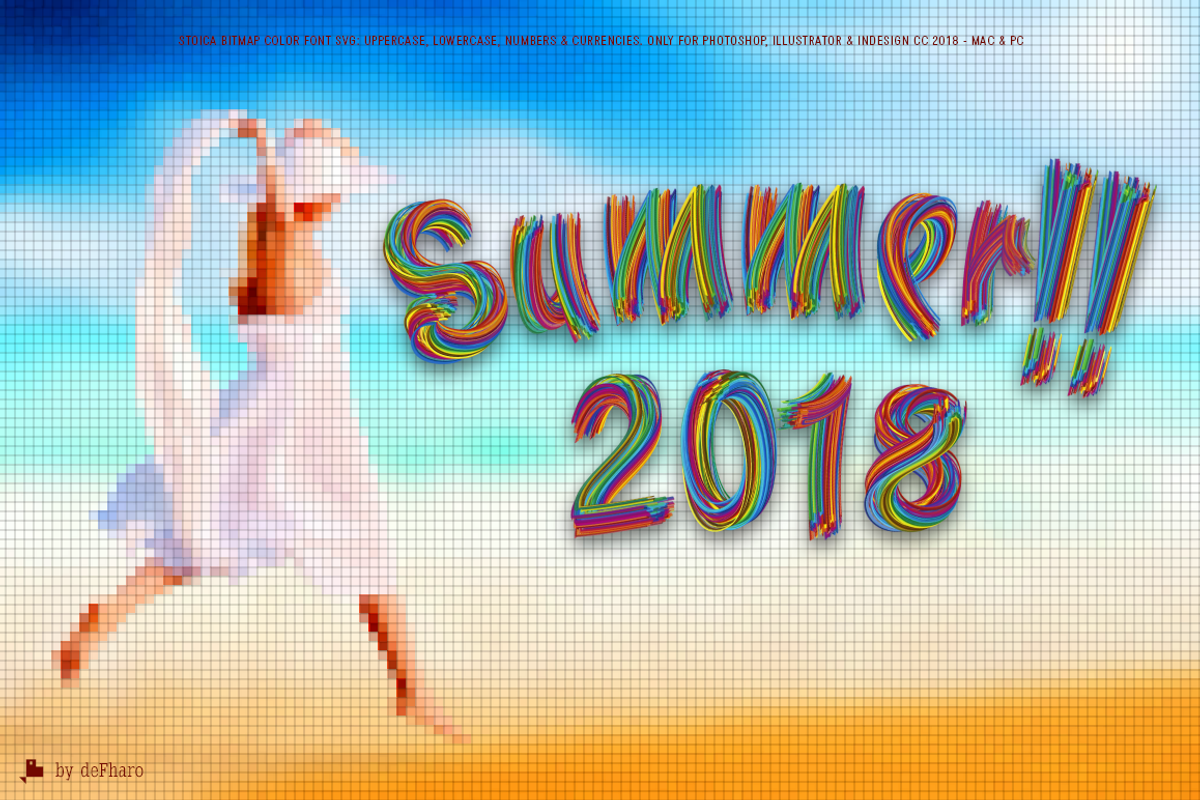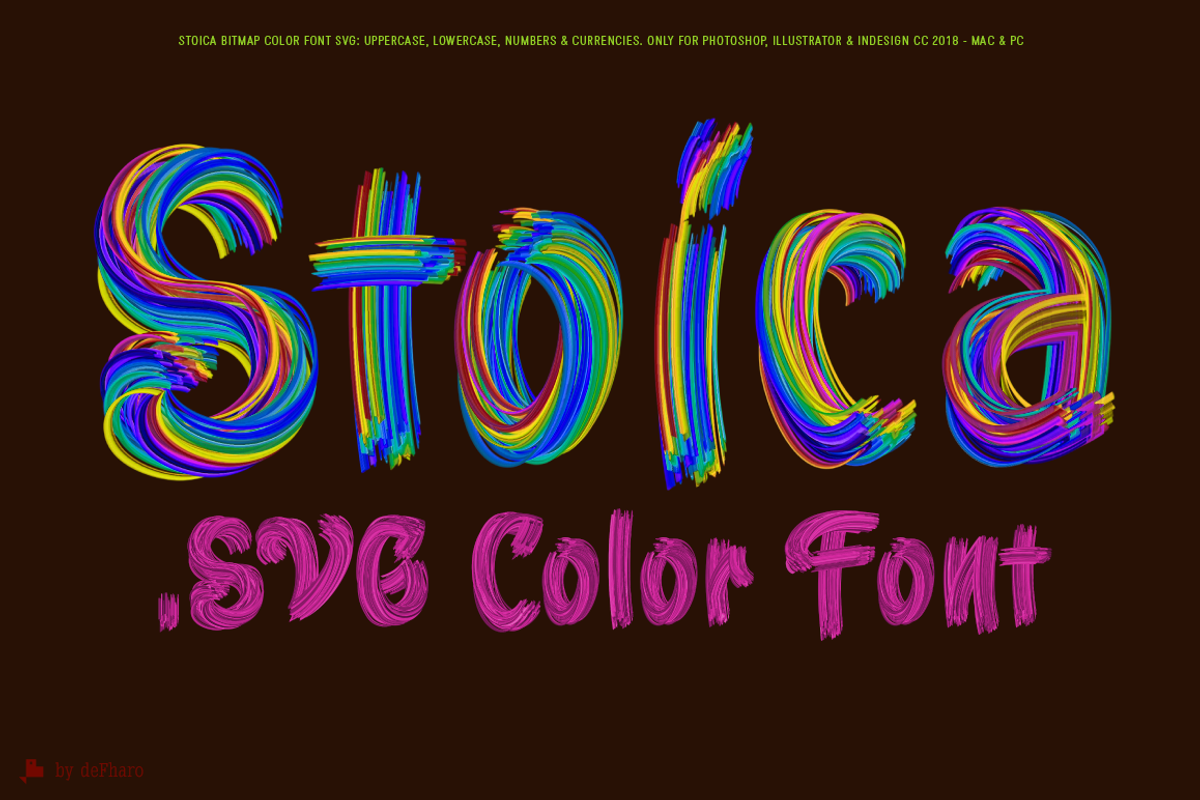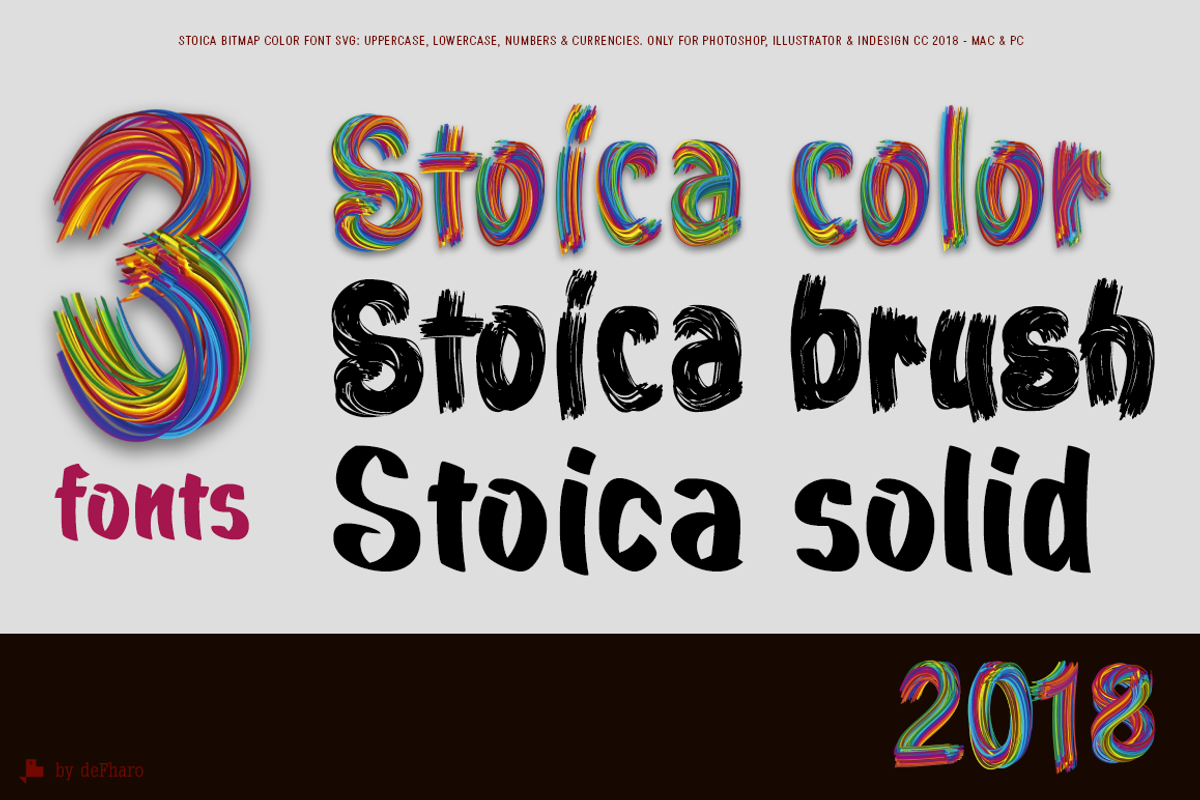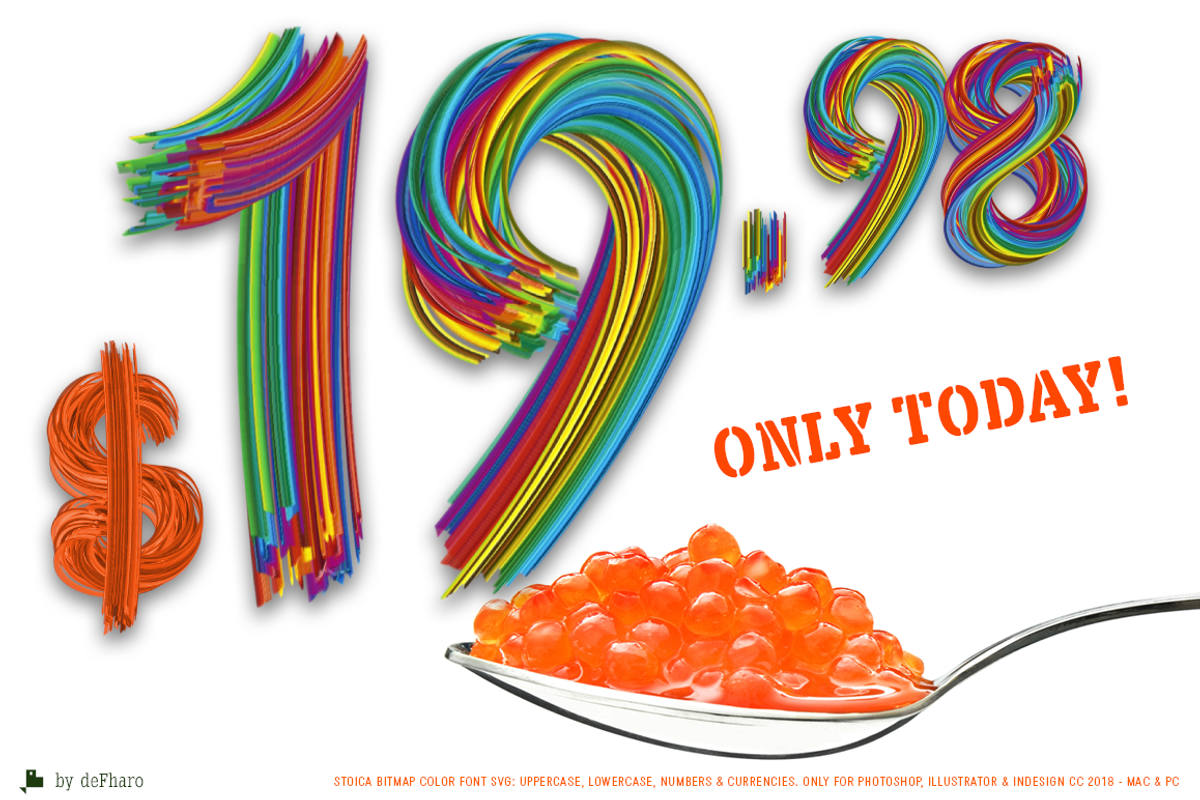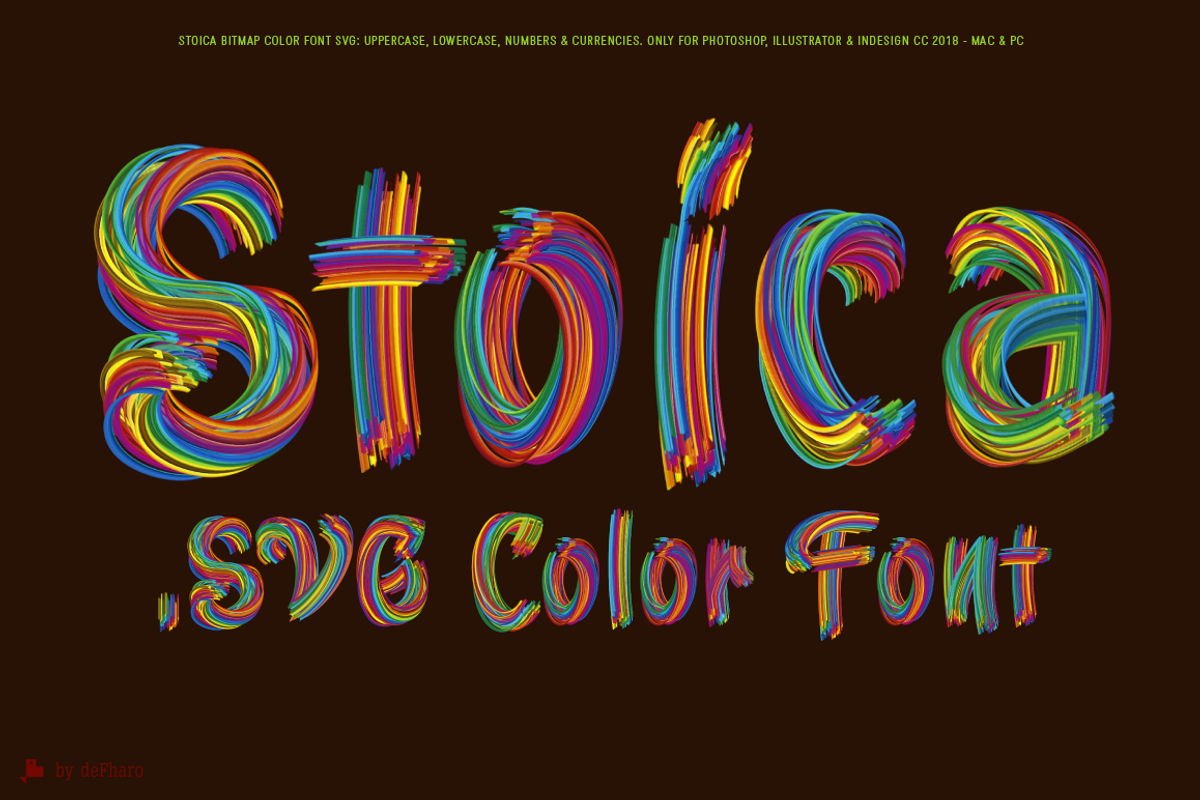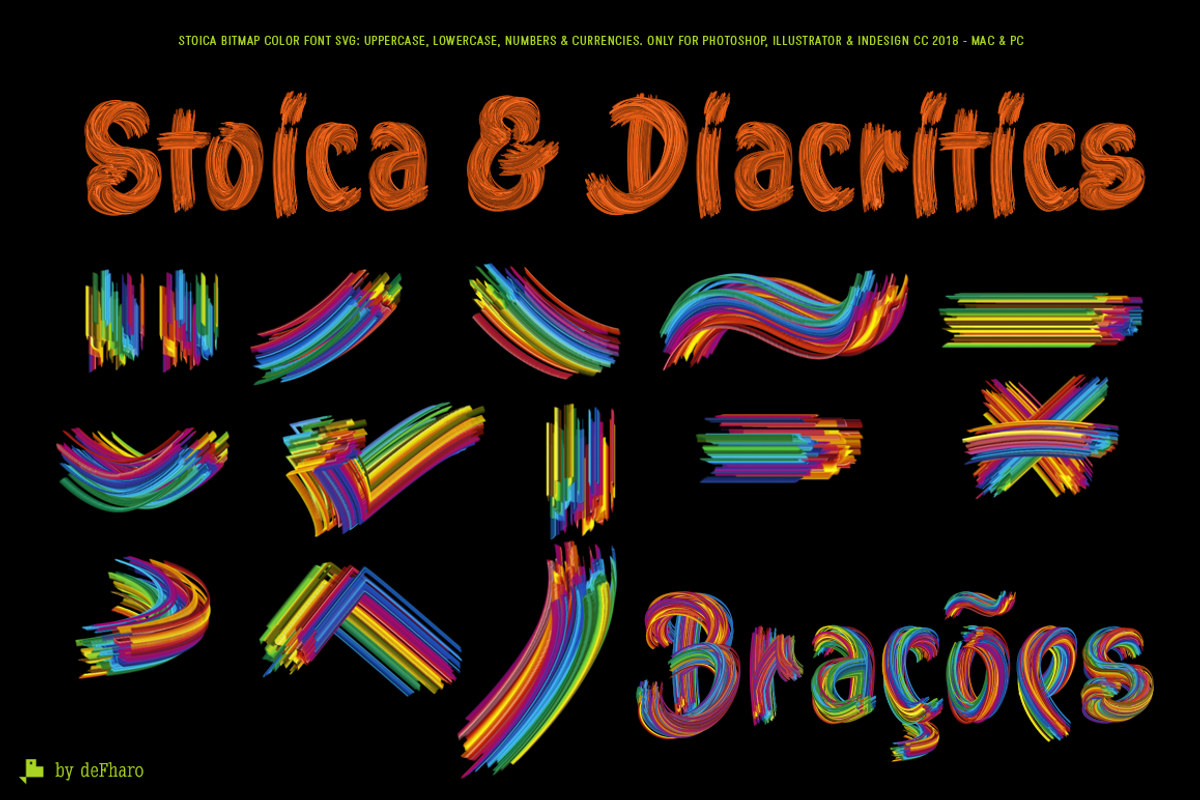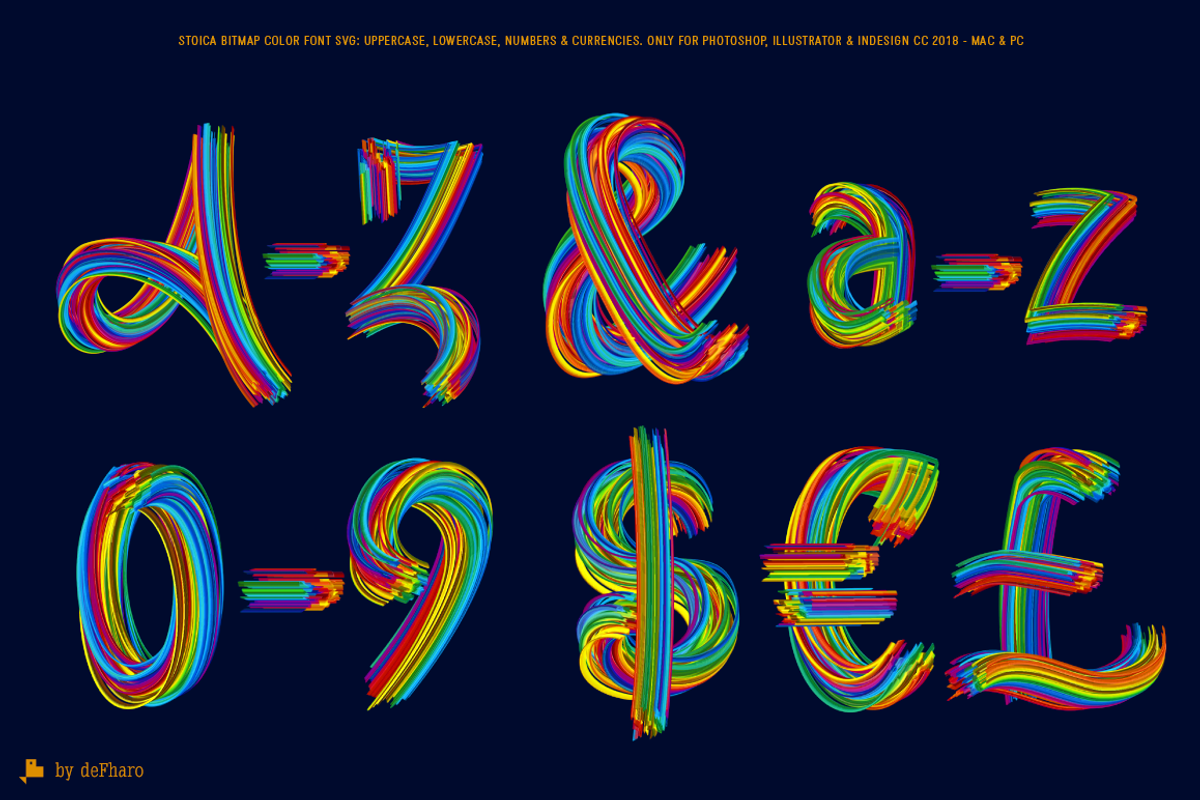
Stoica - Bitmat SVG Color Font
Stoica Color: It is a Bitmap font designed with multicolored 3D pictorial strokes in high resolution up to 900pt. This new file format (OpenType-SVG) is only compatible with Adobe Photoshop, Illustrator and Indesign of versions CC 2018. It can be installed in the latest versions of Windows and Mac OS. Due to the large size of the font file I have included only uppercase, lowercase, numbers, monetary symbols, basic punctuation and diacritic accents to compose phrases in Latin languages. TIP: For the best visualization of the font in Photoshop use the Anti-Aliasing option: Smooth.
Stoica Brush: Vector version imitating the stroke of the previous font, compatible with all applications in .ttf and .otf format.
Stoica Solid: Vector version of the original font, without brush strokes, used to create the two previous ones.